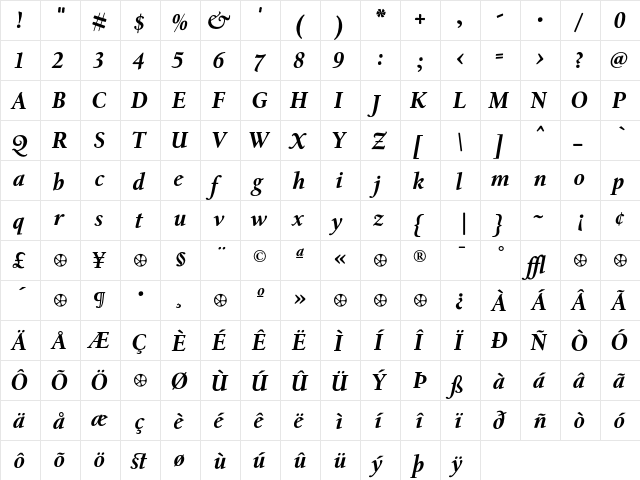
CalifornianText BoldItalic
Design Context for CalifornianText Typeface
CalifornianText offers clean, dependable letterforms without strong stylistic allegiance, making it a practical choice for designers who need flexibility. The dynamic lean of this cut emphasises speed and emphasis in any layout. The heavy weight commands attention and anchors typographic hierarchies.
Pro Tip: Use CalifornianText for emphasis, pull quotes, and subheadings where its slanted energy can add rhythm to the layout.